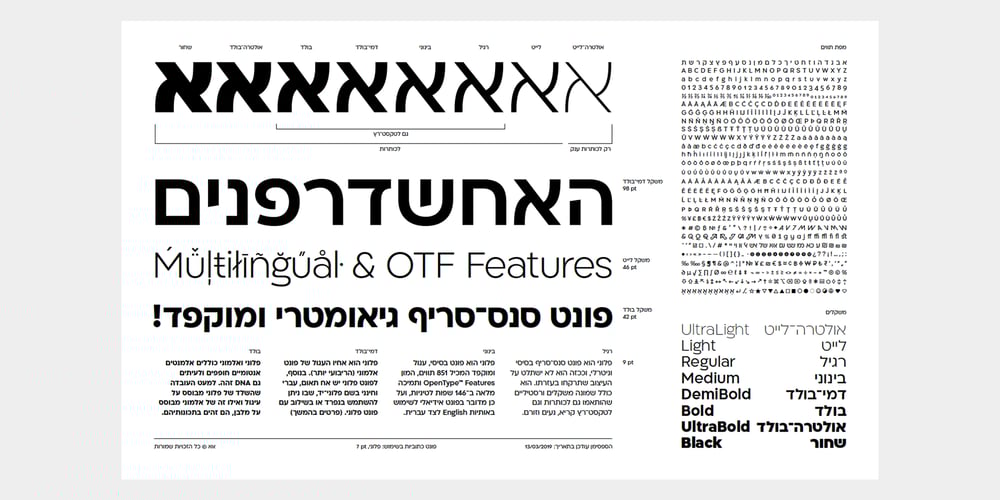
Ploni
Ploni font
Ploni Font Family was designed by Avraham Cornfeld and published by AlefAlefAlef. Ploni contains 8 styles and family package options. Ploni is a precise, geometric multilingual typeface. It contains many glyphs and fully supports 230 Latin, Hebrew and Cyrillic languages – which makes it an ideal font for the side-by-side use of Latin/Cyrillic and Hebrew characters. Many fonts are characterised by their unique character and language, and yet Ploni sheds almost all elements of uniqueness; as such, it will not overshadow your entire design. Every designer needs this functional font in their arsenal.